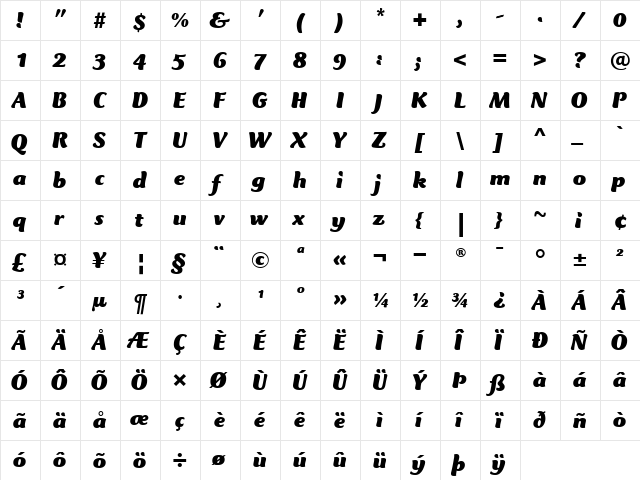
ClubTypeMercurius-Black BlackItalic Font Preview
ClubTypeMercurius-Black BlackItalic
Design Context for ClubTypeMercurius-Black Typeface
ClubTypeMercurius-Black takes a measured approach to typography — its balanced proportions and neutral character make it a reliable workhorse for both digital and print work. Its italic angle brings a sense of urgency and motion to the letterforms.
Pro Tip: Use ClubTypeMercurius-Black for emphasis, pull quotes, and subheadings where its slanted energy can add rhythm to the layout.